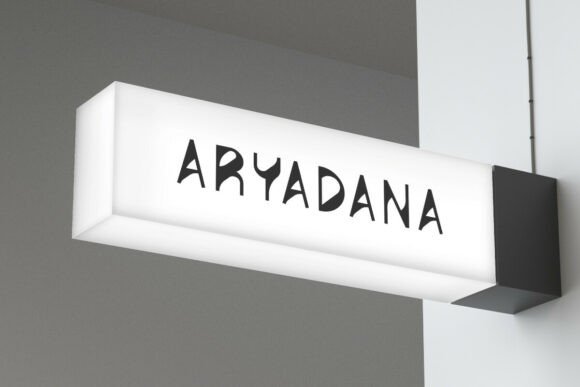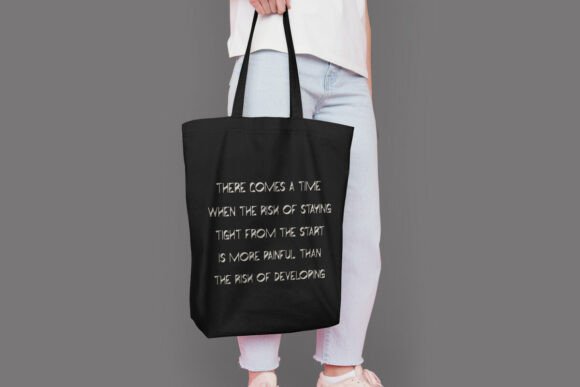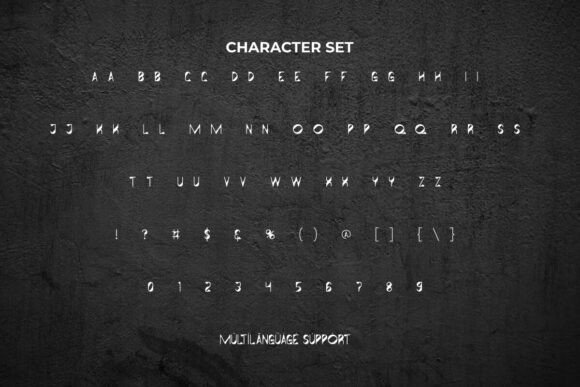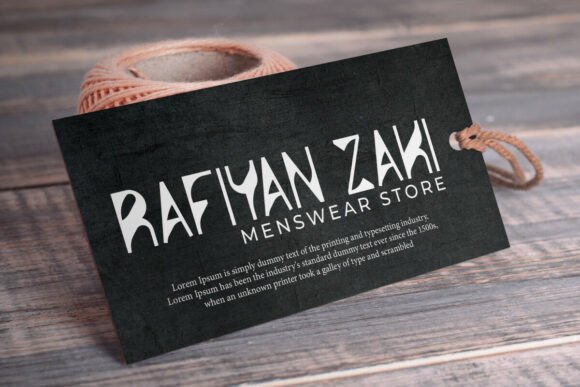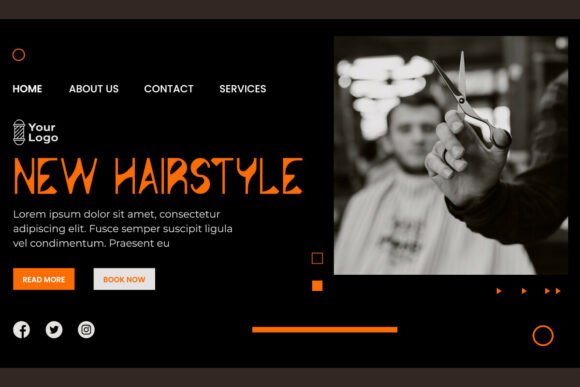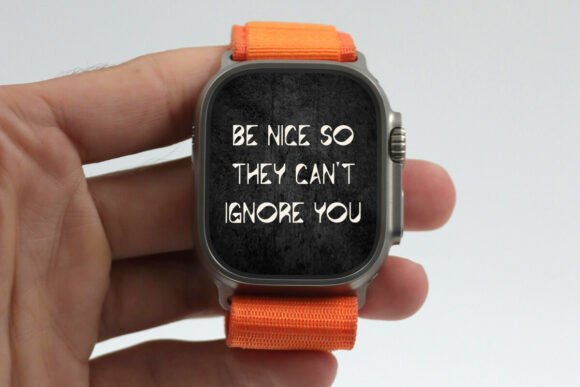
The Perfect Dose of Unconventionality: Extra Shot Font
Have you ever stared at a blank canvas, searching for the perfect font to bring your creative vision to life? It’s that moment when you’re torn between playing it safe and taking a risk, and the result is pure magic. For designers looking to make a statement, the Extra Shot Font is just the right prescription. This strikingly geometric and abstract display font defies conventional norms, creating a bold, artistic, and highly memorable visual statement.
The Extra Shot Font is designed to stand out from the crowd, making it the perfect choice for modern art branding, edgy magazine titles, contemporary music posters, or unique fashion logos. Its heavy, stark aesthetic ensures high visual impact, making it an unforgettable choice for headers.
For designers, the Extra Shot Font is a valuable asset, offering a level of creative freedom that’s hard to find. With its bold, avant-garde personality, it’s the perfect tool to communicate a message that’s unconventional, artistic, and aggressively modern.
Extra Shot Font Key Features
- Font Family: Extra Shot Font is a modern sans-serif typeface designed for versatility and readability.
- Font Size: Offers 8 font sizes ranging from 8pt to 72pt, making it suitable for a wide range of applications, from body text to display headlines.
- Resolution: Optimized for high-resolution displays (Retina and 4K), ensuring crisp and clear typography at any zoom level.
- Unique Characteristics: Features a unique blend of geometric and organic shapes, resulting in a clean, modern aesthetic with a touch of warmth and personality.
Designer Review: Extra Shot Font
At first glance, Extra Shot Font is a bold and eye-catching font that could easily catch the attention of coffee enthusiasts and design aficionados alike. ✨ The font’s unique blend of modern and vintage elements gives it a distinctive feel that sets it apart from other sans-serif fonts.
One of the standout features of Extra Shot Font is its versatility. ✨ It works well in both digital and print applications, making it a great choice for designers looking for a font that can adapt to different mediums. Additionally, the font’s bold weight and x-height make it an excellent choice for headlines and titles.
Limits and Areas for Improvement
However, there are some limitations to Extra Shot Font that designers should be aware of. ⚠️ For one, the font’s condensed x-height can make it difficult to read in smaller sizes or for users with vision impairments. Additionally, the font’s limited glyph set may not be suitable for complex or technical text.
In conclusion, Extra Shot Font is a solid choice for designers looking for a bold and attention-grabbing font. While it may have some limitations, its unique style and versatility make it a great addition to any design project. With some careful consideration of the font’s limitations, designers can create stunning designs that showcase the beauty of Extra Shot Font.
Key Features
- Unique blend of modern and vintage elements
- Highly versatile and adaptable to different mediums
- Excellent choice for headlines and titles
- Condensed x-height may be difficult to read in smaller sizes
- Limited glyph set may not be suitable for complex or technical text
Extra Shot Font is ideal for:
- Restaurant menus and signage